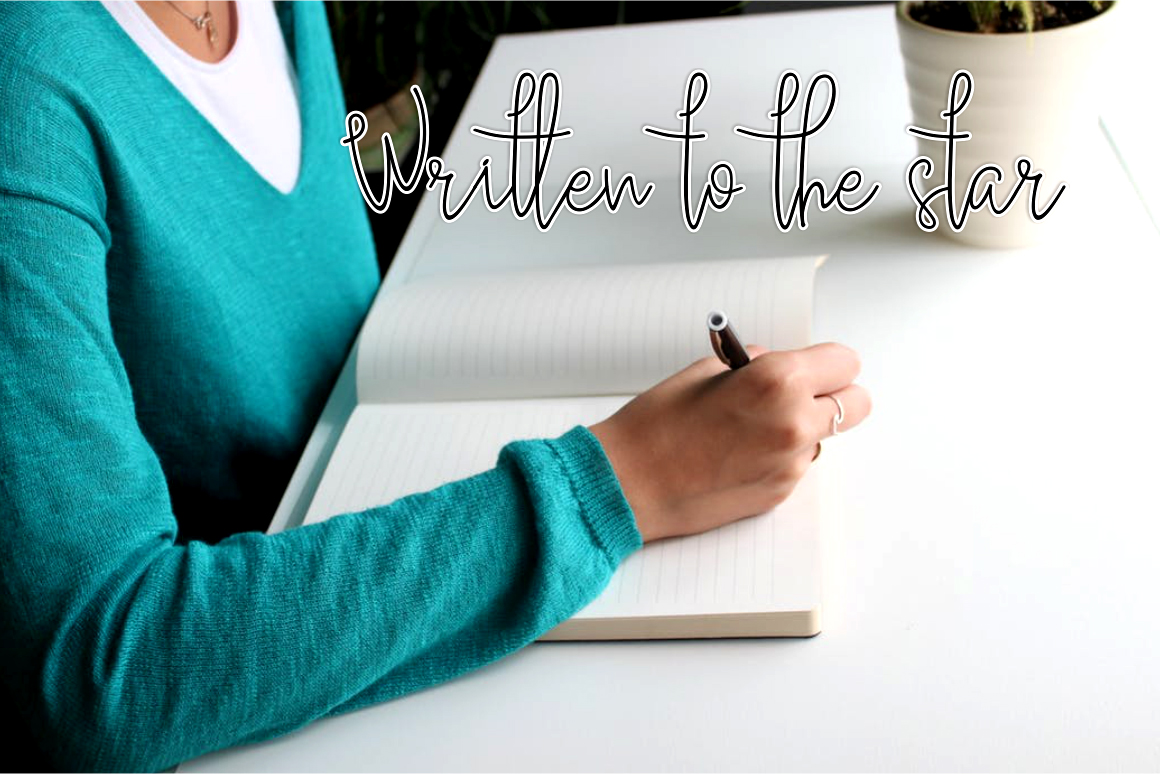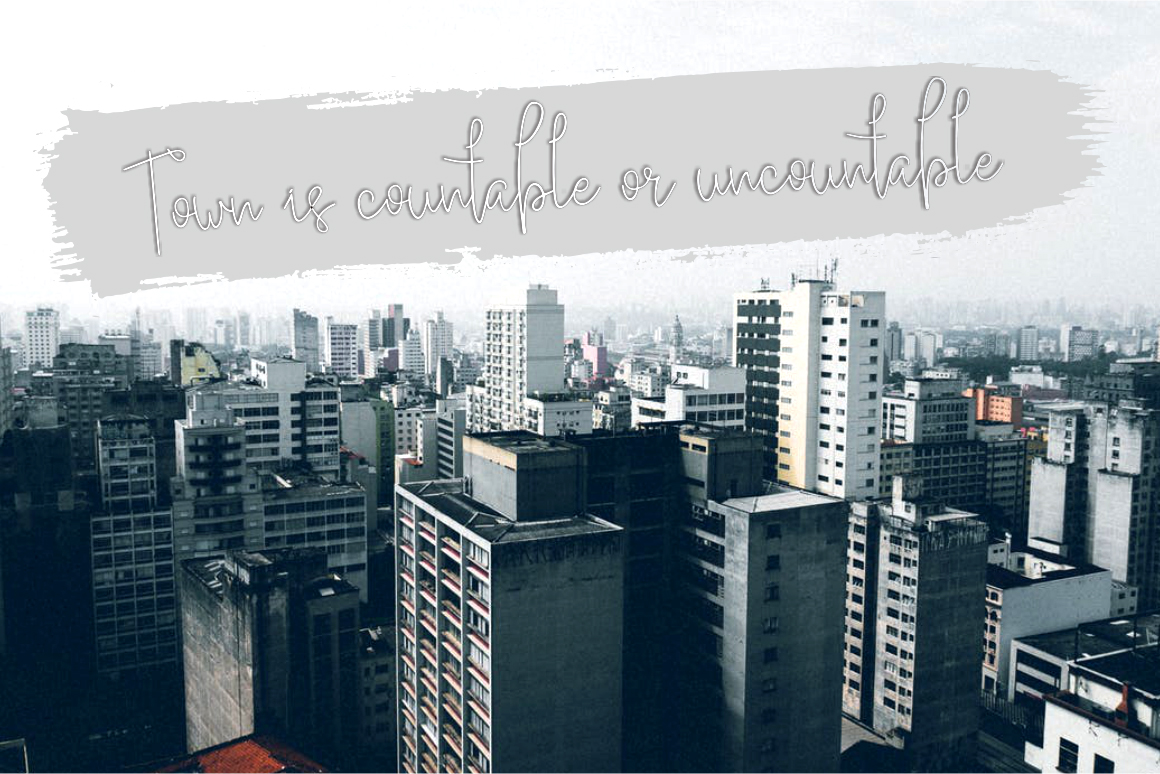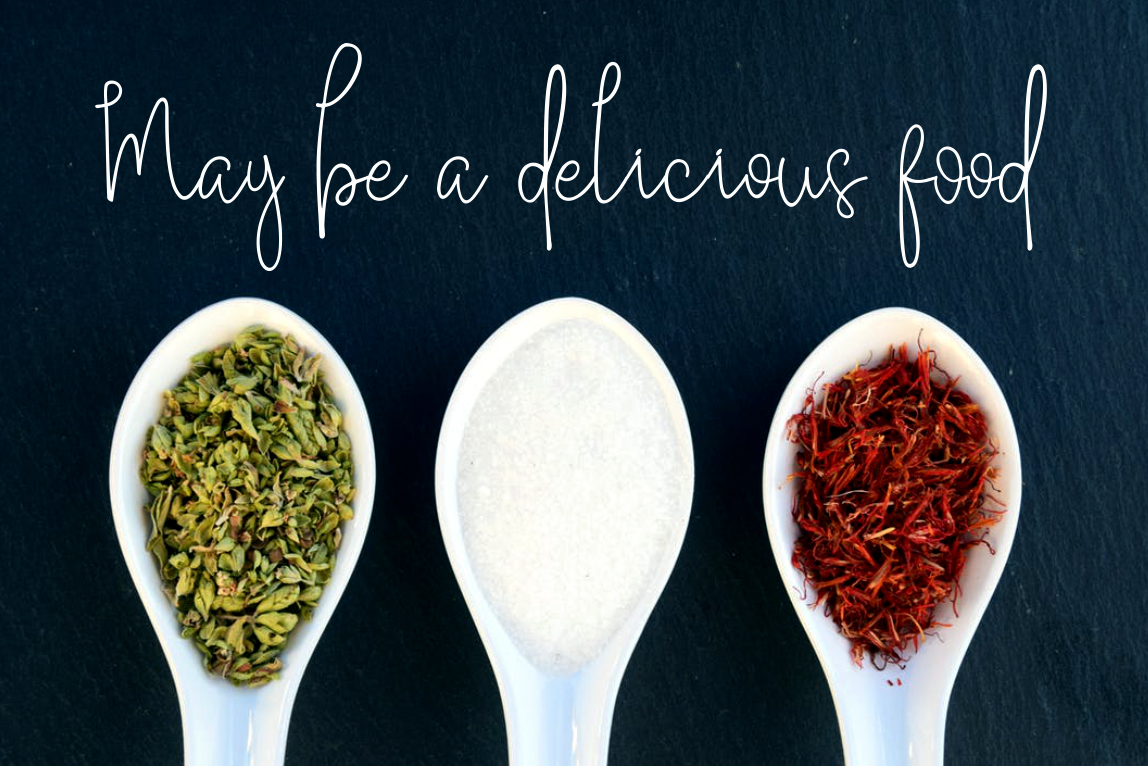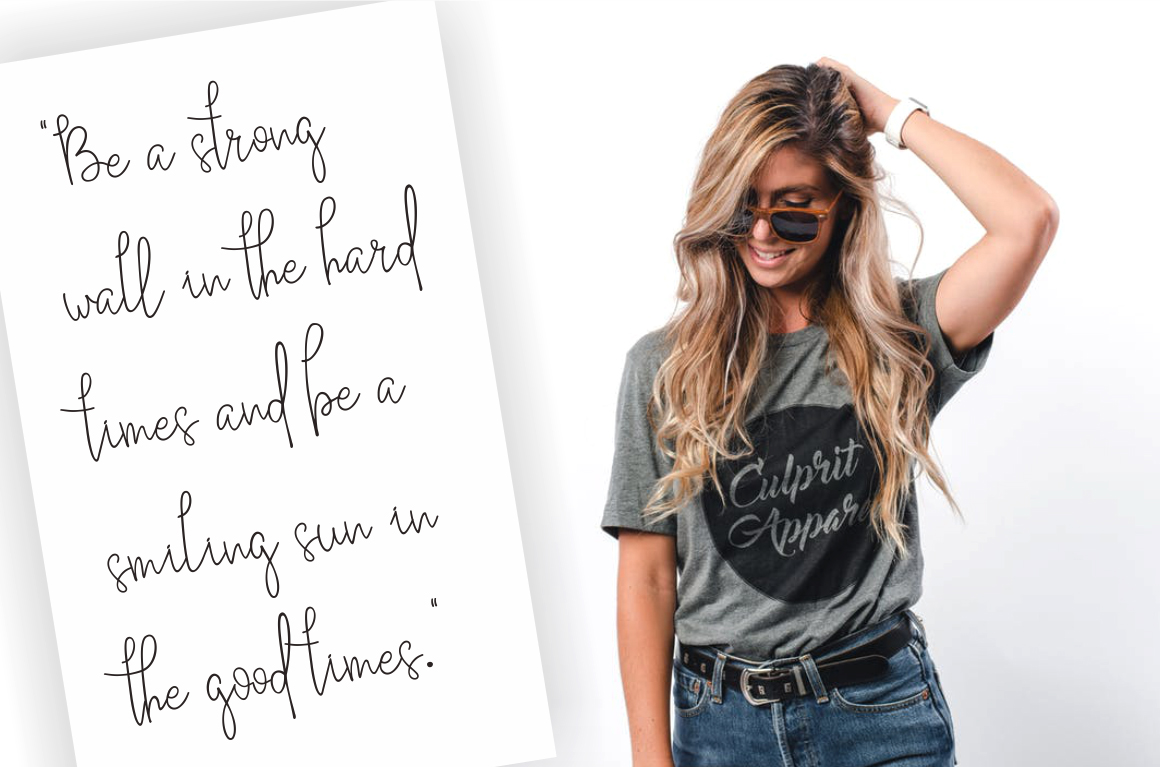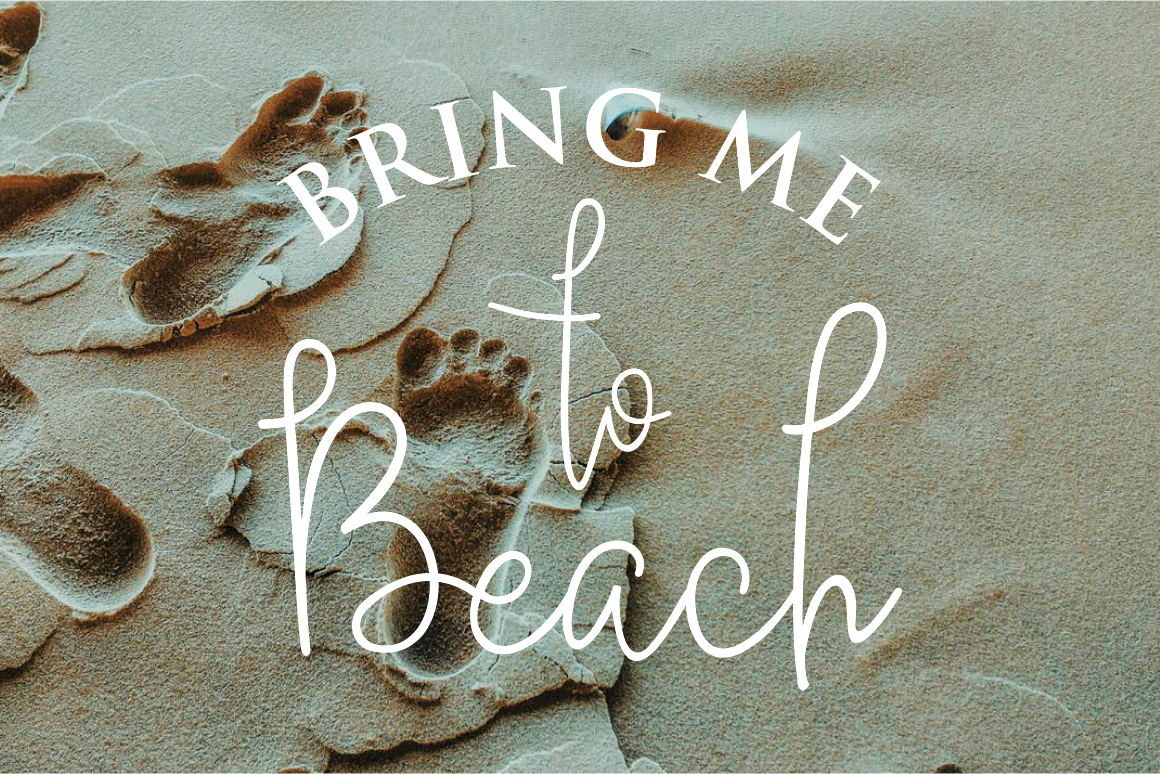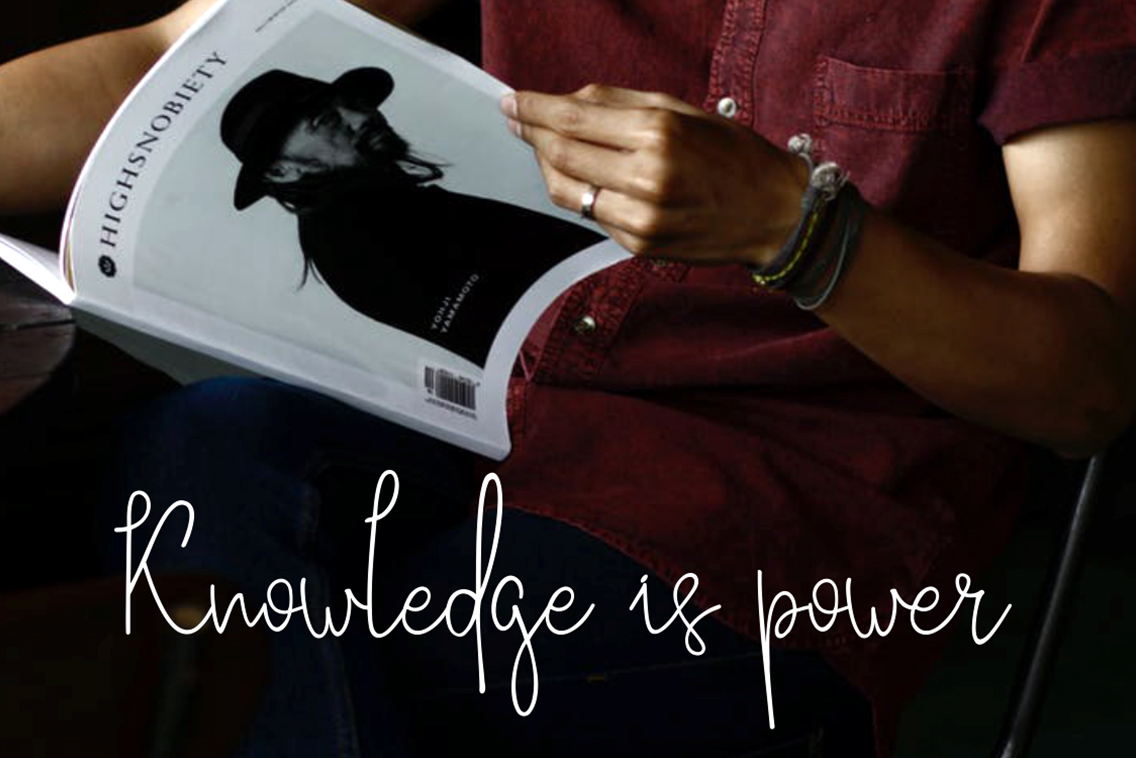
Odeline Sathry Font
About Odeline Sathry Font
Odeline Sathry is a stunning handwritten font with ease; this signature monoline font is perfect for use in displays of all kinds and works best in highly editorial and fashionable projects.